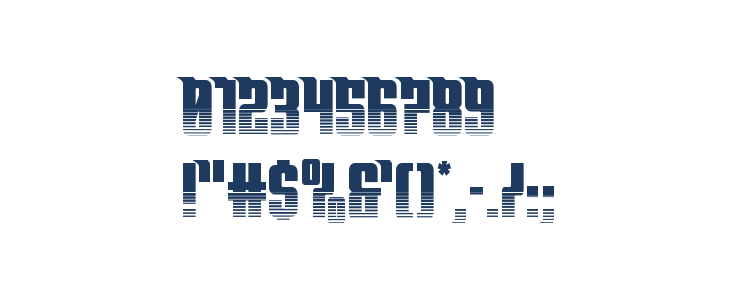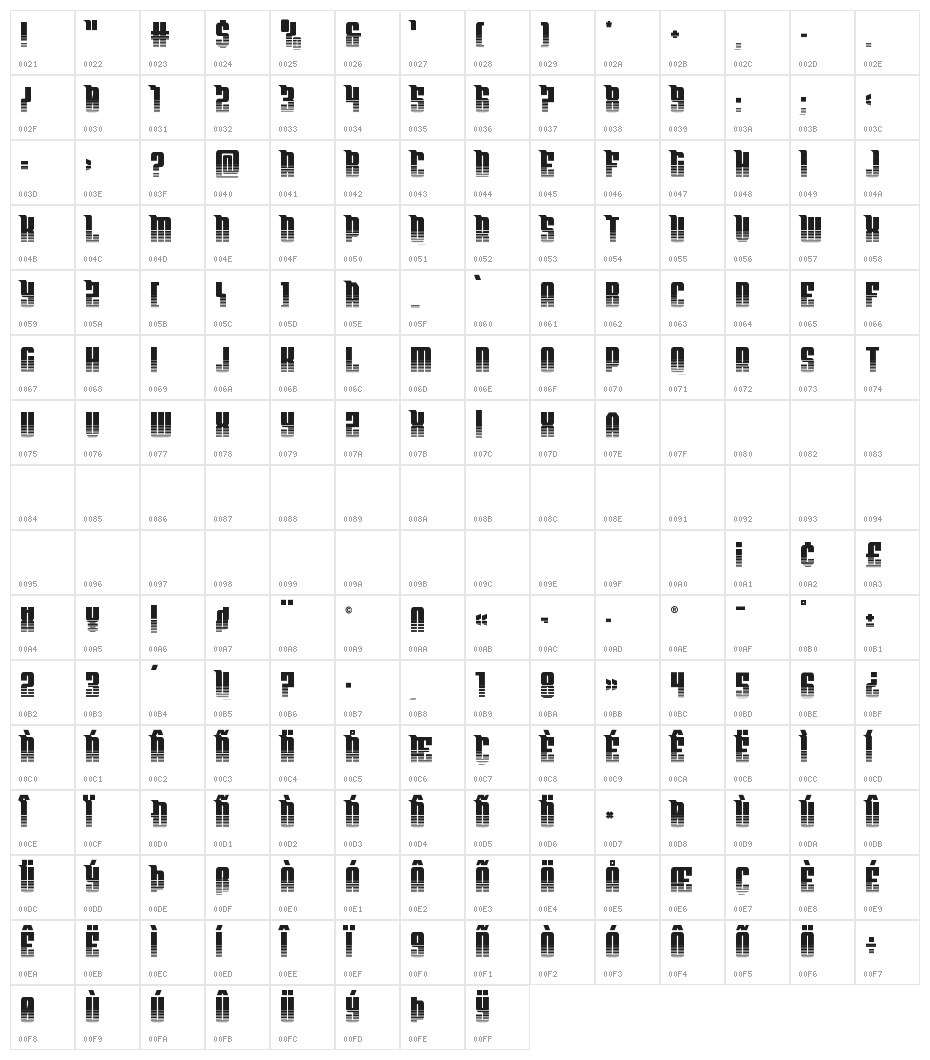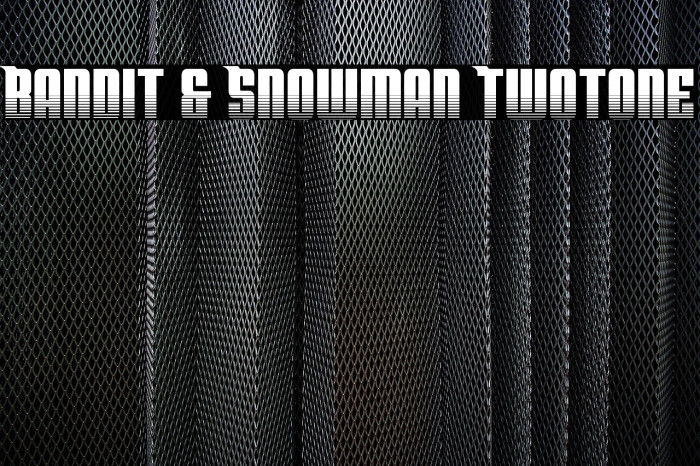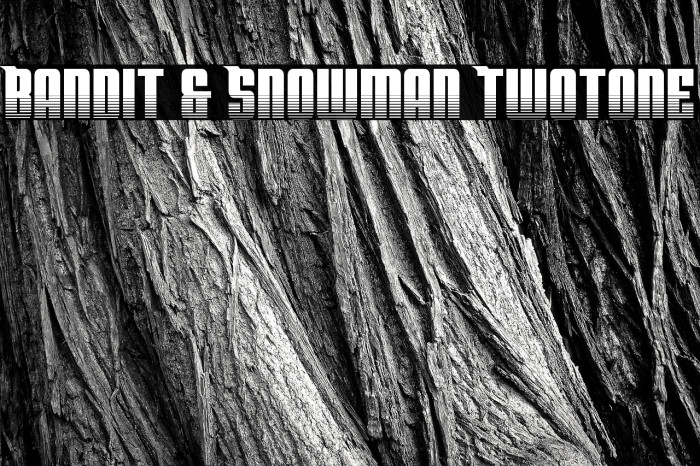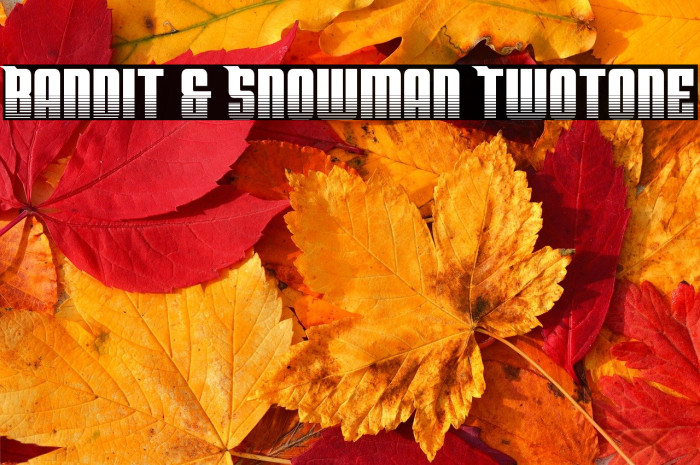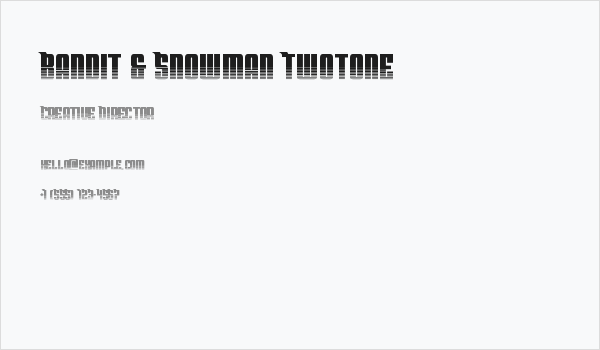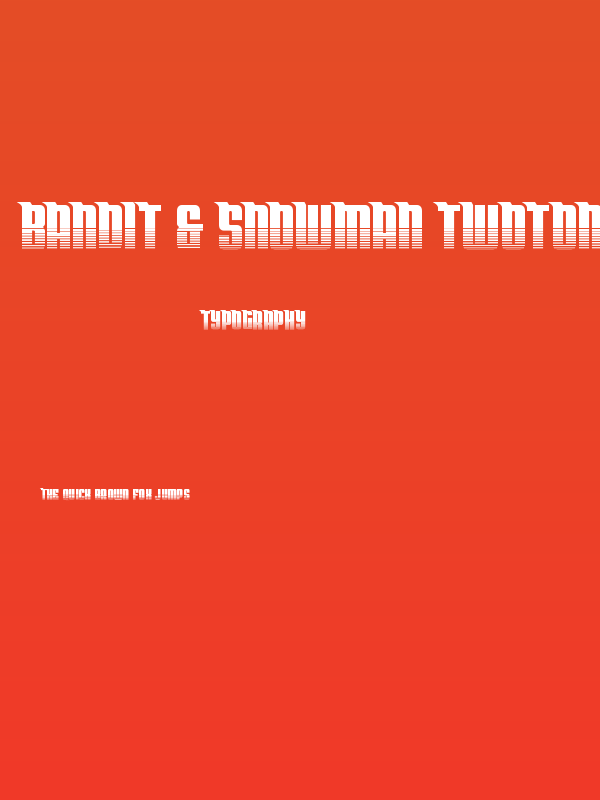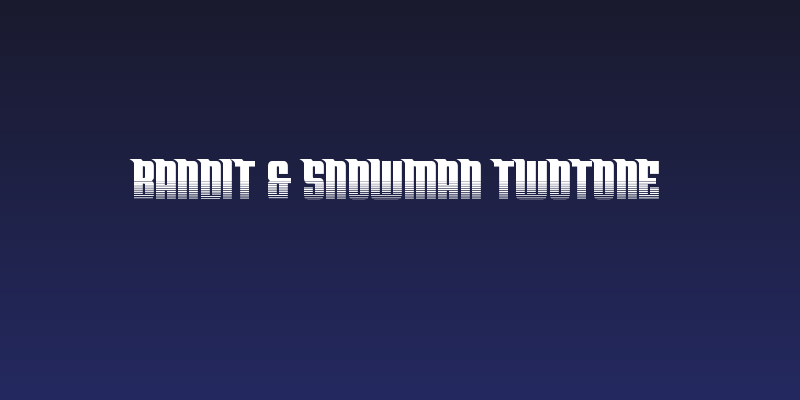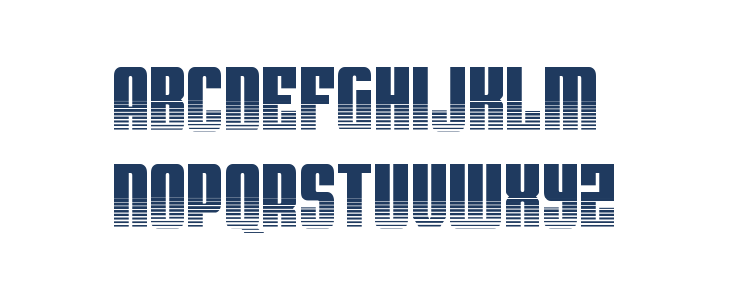
Bandit & Snowman Twotone Font
Bandit & Snowman Twotone Description
This font features a bold, modern design with a unique two-tone effect. The characters are structured with a solid upper half and a striped lower half, creating a dynamic and eye-catching appearance. The uppercase and lowercase letters maintain a consistent style, with the uppercase being slightly more pronounced. Numbers and special characters follow the same design principle, ensuring uniformity across all glyphs. The font's geometric shapes and sharp edges contribute to its contemporary look, making it suitable for projects that require a strong visual impact.